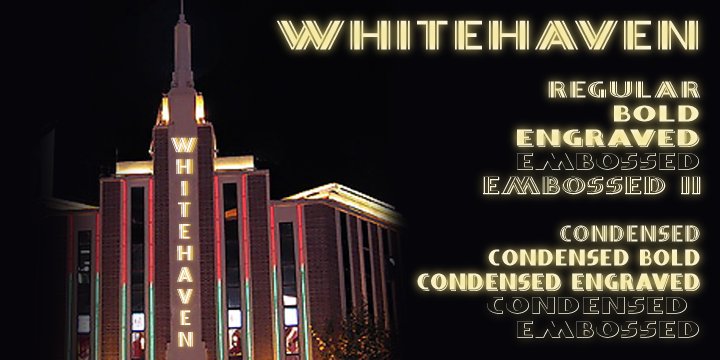
Whitehaven
Whitehaven is the spirit of the Art Deco movement made into a very solid and blocky Sans Serif font.
The name owes its inspiration to Whitehaven Mansions, a block of flats where that greatest of 1930s detectives, Hercule Poirot lived.
Use this to make bold statements, to give posters and designs a taste of thee 30s, and wherever you want to be clear and definitive. Whitehaven is offered in two widths and a range of embossed and engraved styles for flexibility in design work.